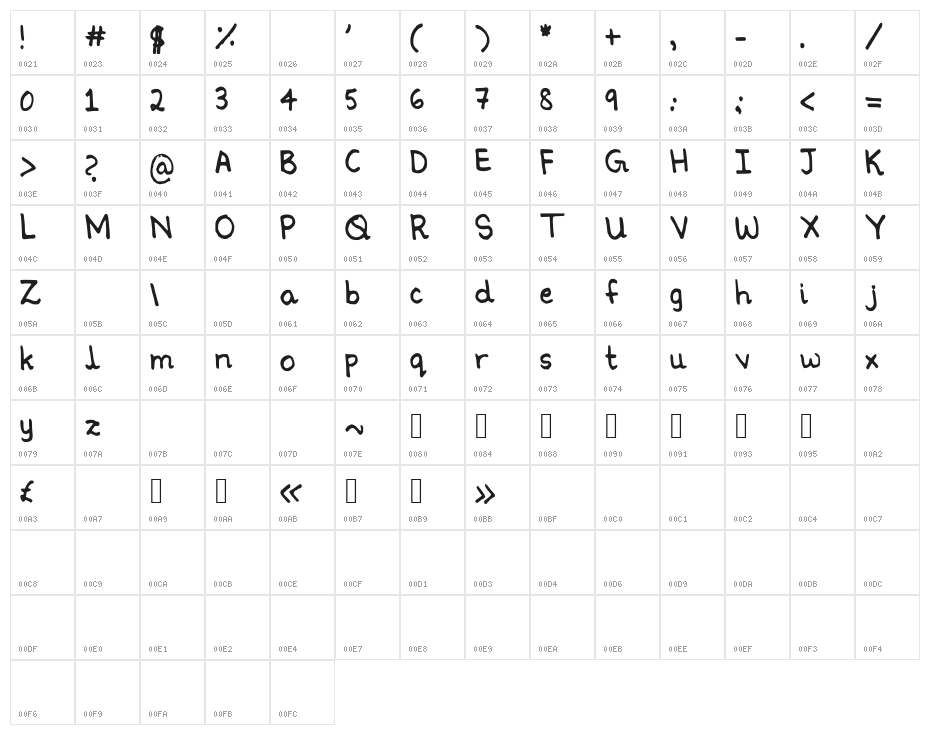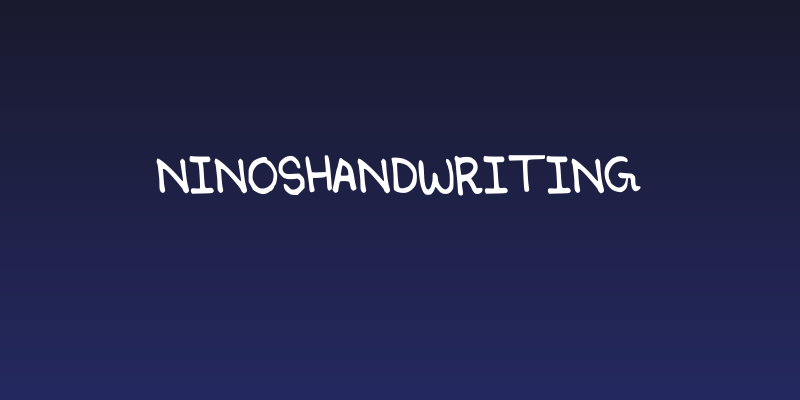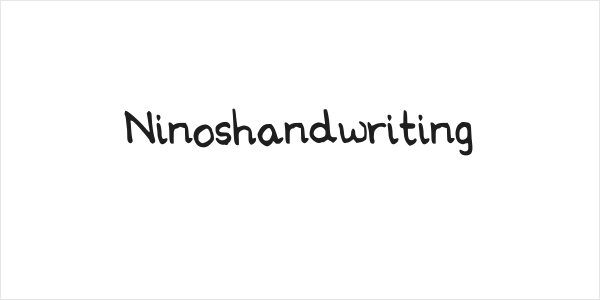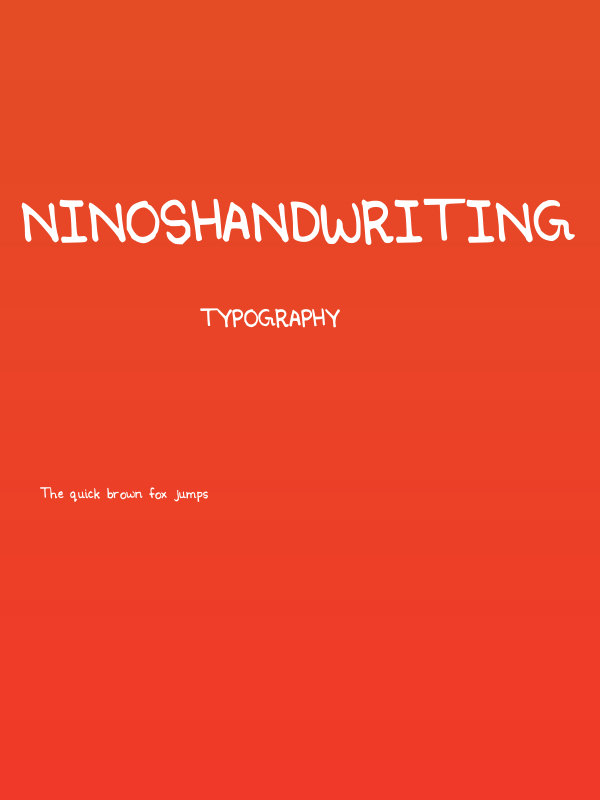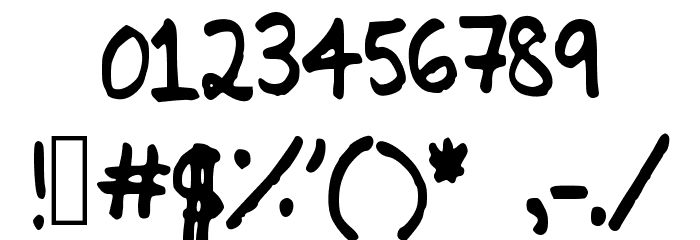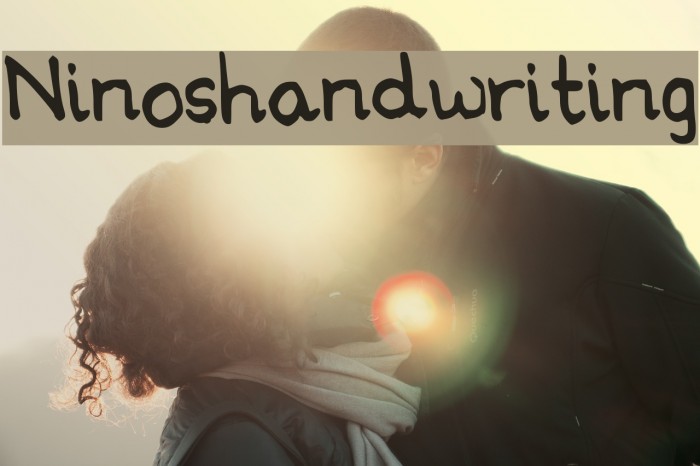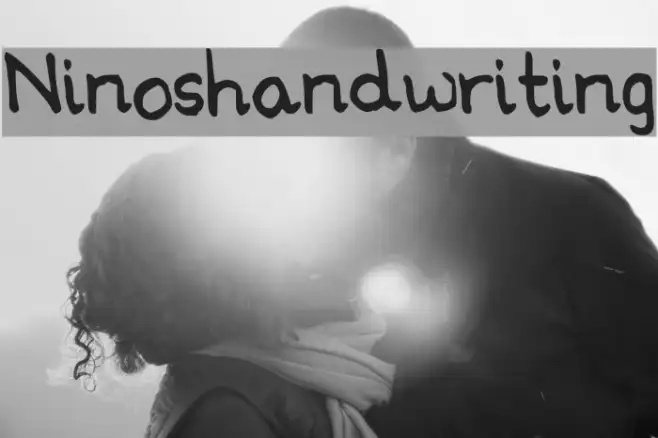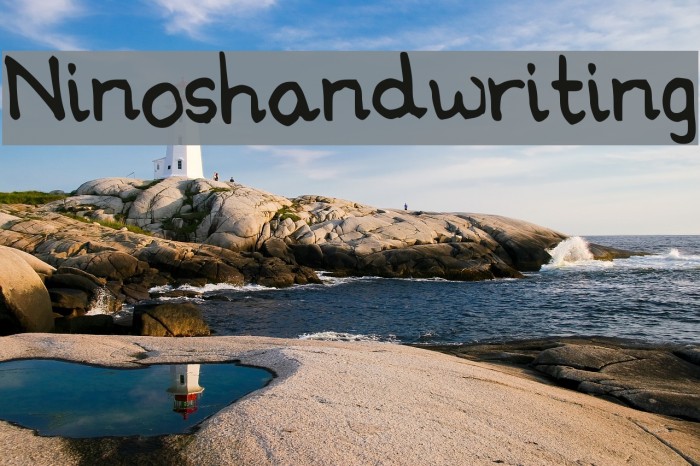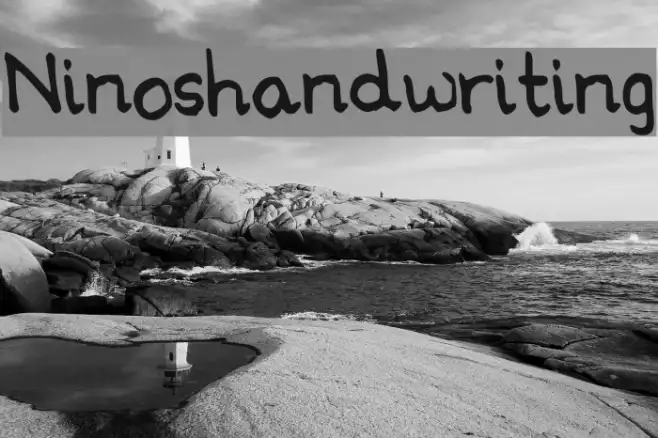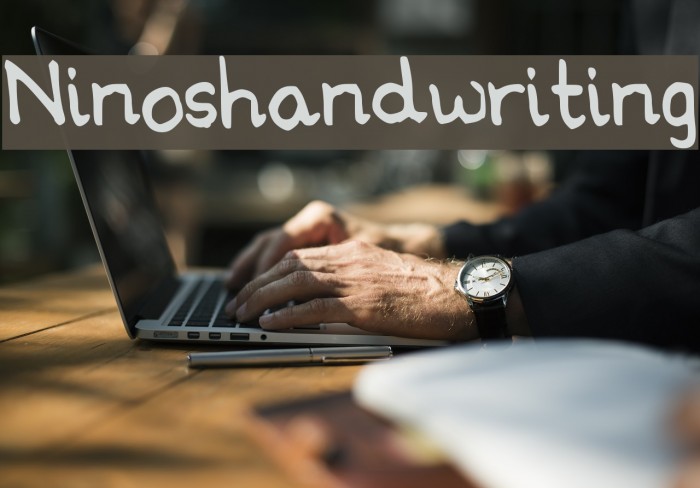
Ninoshandwriting Font
Ninoshandwriting Description
This font exudes a playful and informal vibe, characterized by its handwritten style that mimics the natural flow of casual penmanship. The letters are rounded and slightly irregular, giving them a friendly and approachable appearance. The strokes are consistent in thickness, providing a uniform look across all characters. The font includes both uppercase and lowercase letters, numbers, and a variety of special characters, making it versatile for different uses. Its whimsical nature makes it ideal for projects that require a personal touch or a sense of fun and creativity.